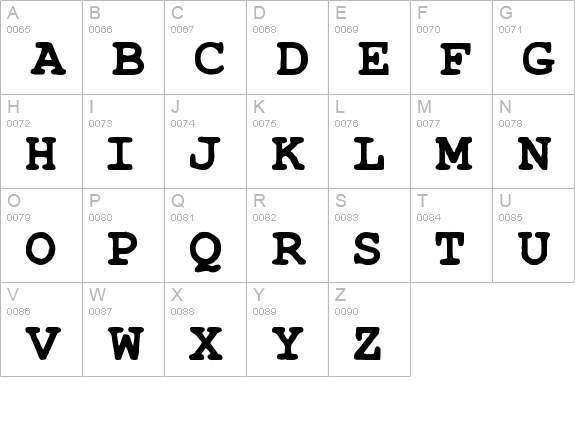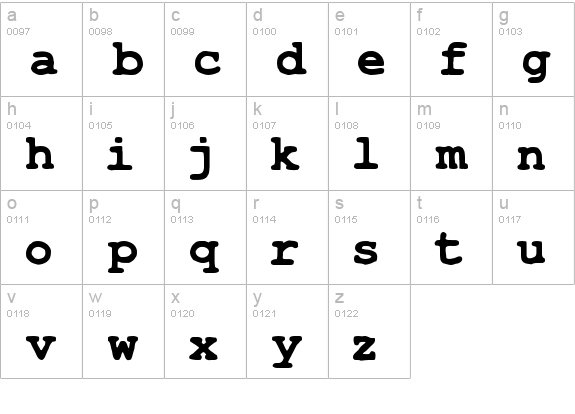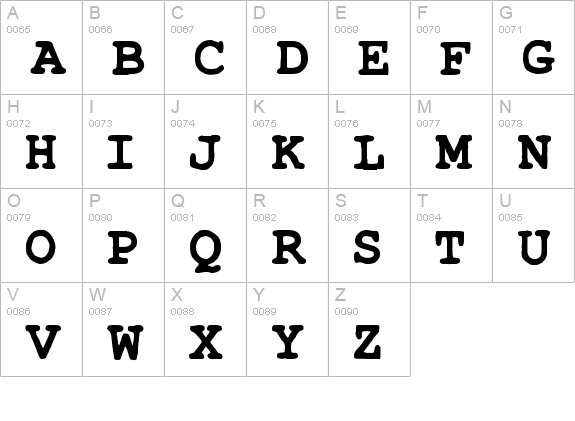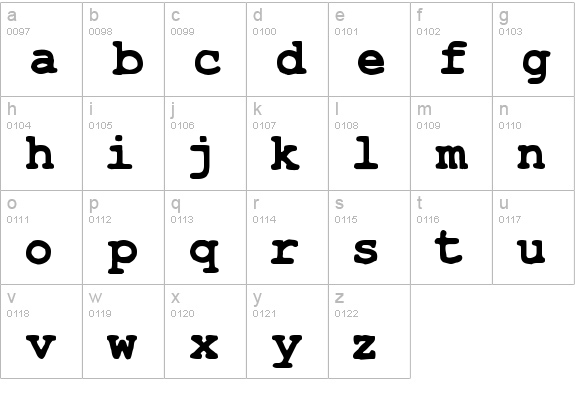
TypeWrong Smudged - DGL Bold Font Details
TypeWrong Smudged - DGL Bold is a strong, high-contrast variant in the TypeWrong typeface family \xE2\x80\x94 well suited to headlines, attention-grabbing titles, and strong calls-to-action.
TypeWrong Smudged - DGL Bold is a striking and modern font that effortlessly blends boldness with a touch of smudged texture. Its strong and confident letterforms make a powerful statement, while the subtle smudging adds a unique and edgy element to its overall appearance. Designed for those who dare to be different, TypeWrong Smudged - DGL Bold is perfect for designs that require a strong and rebellious touch. Whether it's for headlines, posters, logos, or branding materials, this font will make your message stand out from the crowd. With its thick and assertive strokes, TypeWrong Smudged - DGL Bold demands attention and exudes a sense of strength and resilience. Its smudged texture adds a touch of rawness and imperfection, giving your designs an authentic and handcrafted feel. One of the best things about TypeWrong Smudged - DGL Bold is that it is freely available to download at FontsMarket.com. This means that you can easily access and use this font in your projects without any hassle. Whether you are a professional designer or a hobbyist, this font is at your disposal, allowing you to unleash your creativity without any limitations. So why wait? Download TypeWrong Smudged - DGL Bold today and bring a bold and smudged touch to your designs. Let this font be the voice that speaks volumes and sets your work apart. Embrace the free spirit and unleash your imagination with this outstanding typeface.